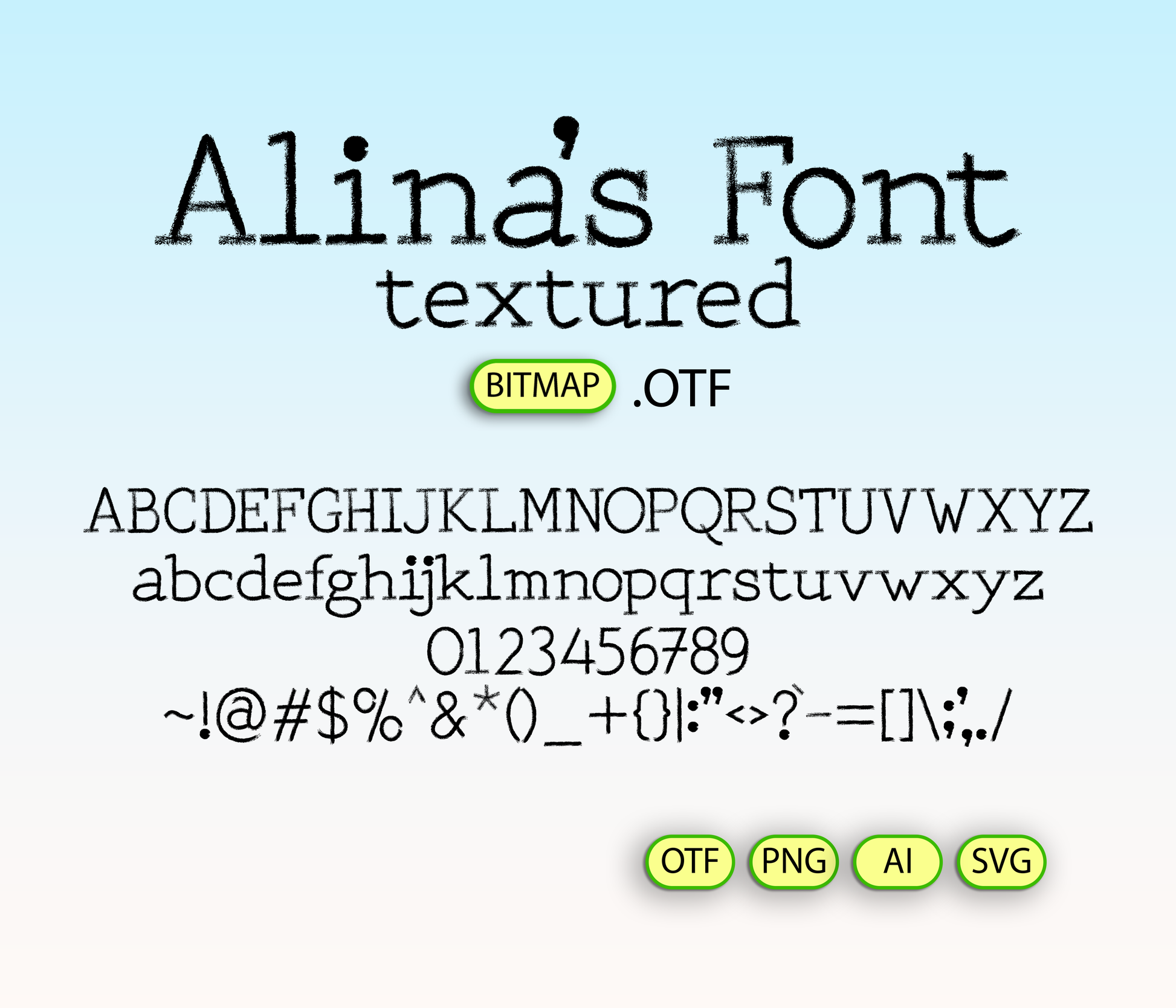
Rustic Keys – Grunge Ink Texture Typewriter Font
Embrace the weathered beauty of forgotten manuscripts with our Rustic Keys font, capturing the authentic essence of aged typewriters and worn correspondence. Perfect for grunge designers, vintage content creators, distressed aesthetic enthusiasts, and weathered brand specialists, this font brings the raw, authentic character of well-used writing machines to your projects. Create compelling aged documents, distressed merchandise, or atmospheric digital content with the gritty, nostalgic energy of typewriters that have witnessed countless stories.
Our Rustic Keys font features weathered, irregular characters and authentic ink bleeding that reflects the worn yet soulful aesthetic of vintage typewriters and aged documentation. Ideal for:
• Grunge Events: Create atmospheric concert posters, underground venue signage, and distressed party materials for alternative music gatherings and indie celebrations
• Vintage Design: Perfect for antique shop branding, weathered book covers, and aged manuscript reproductions that celebrate historical authenticity
• Digital Media: Enhance blogs, websites, and social media with textured headers and graphics that express raw, unpolished creativity
• Entertainment Content: Add genuine character to horror films, mystery games, and promotional materials for atmospheric or period-themed events
• Personal Projects: Bring distressed elegance to scrapbooking, vintage crafts, and artistic endeavors inspired by the aesthetics of forgotten correspondence